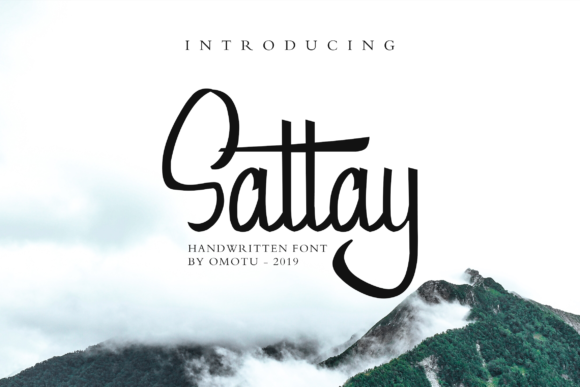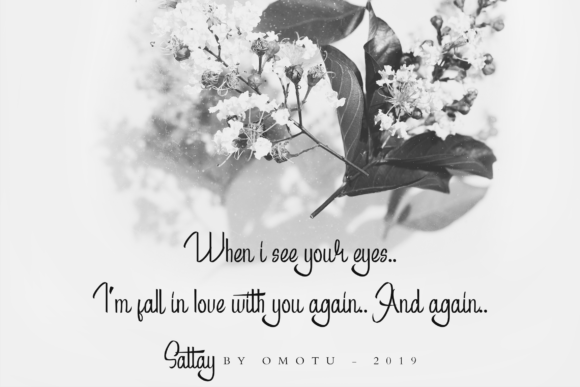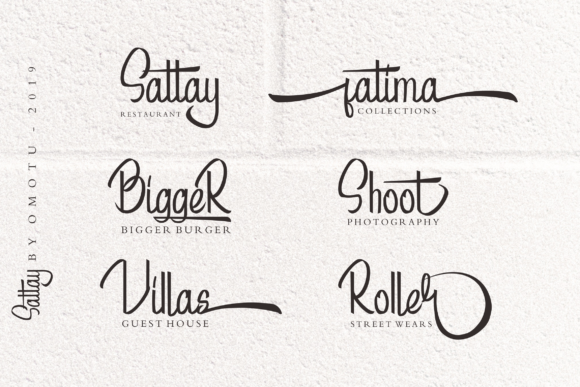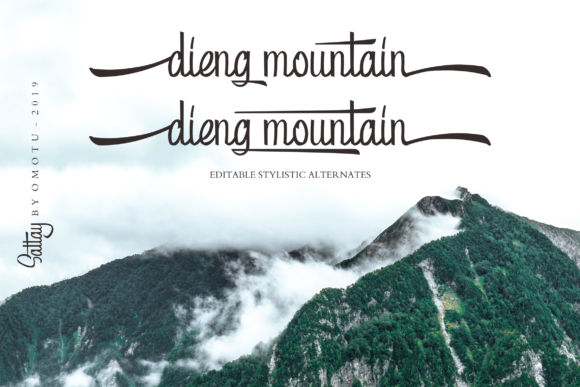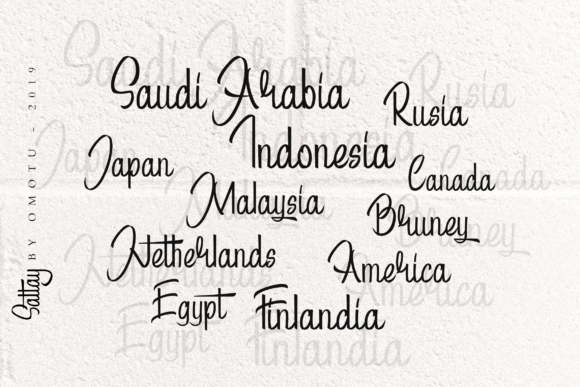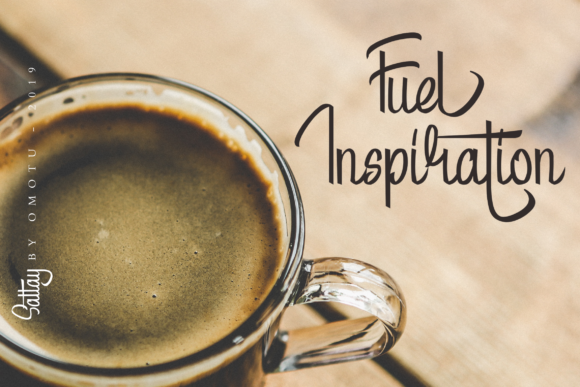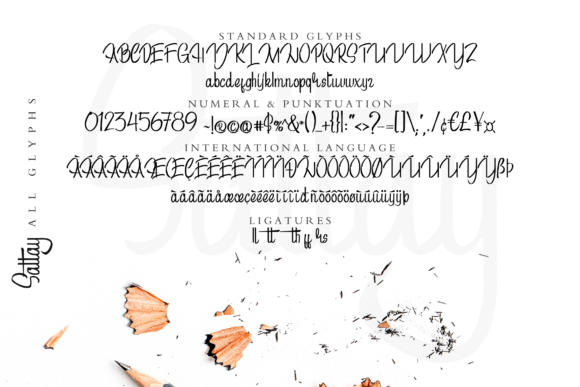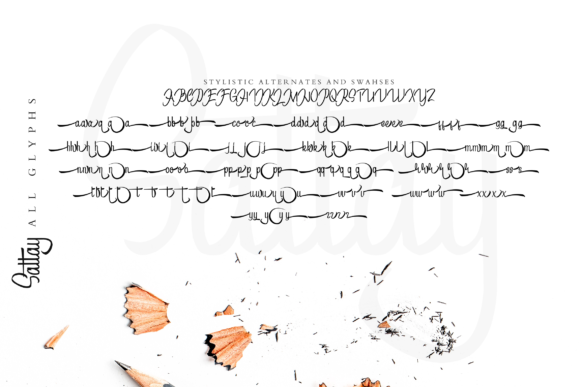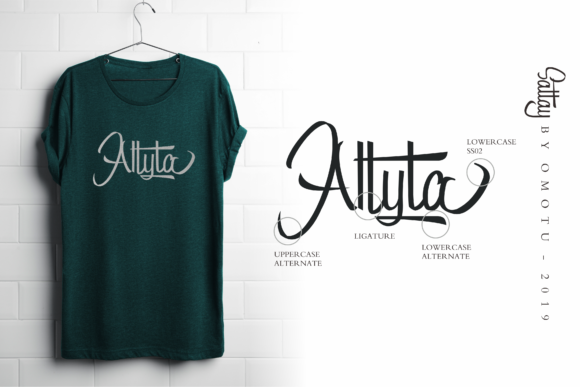
Sattay Font
About Sattay Font
The Sattay is a modern & fresh script. Its handwritten style gives it an elegant and stylish look.
It’s perfect for photography, watermarks, social media posts, advertisements, logos & branding, invitations, product designs, labels, and any other design that needs a handwritten touch.